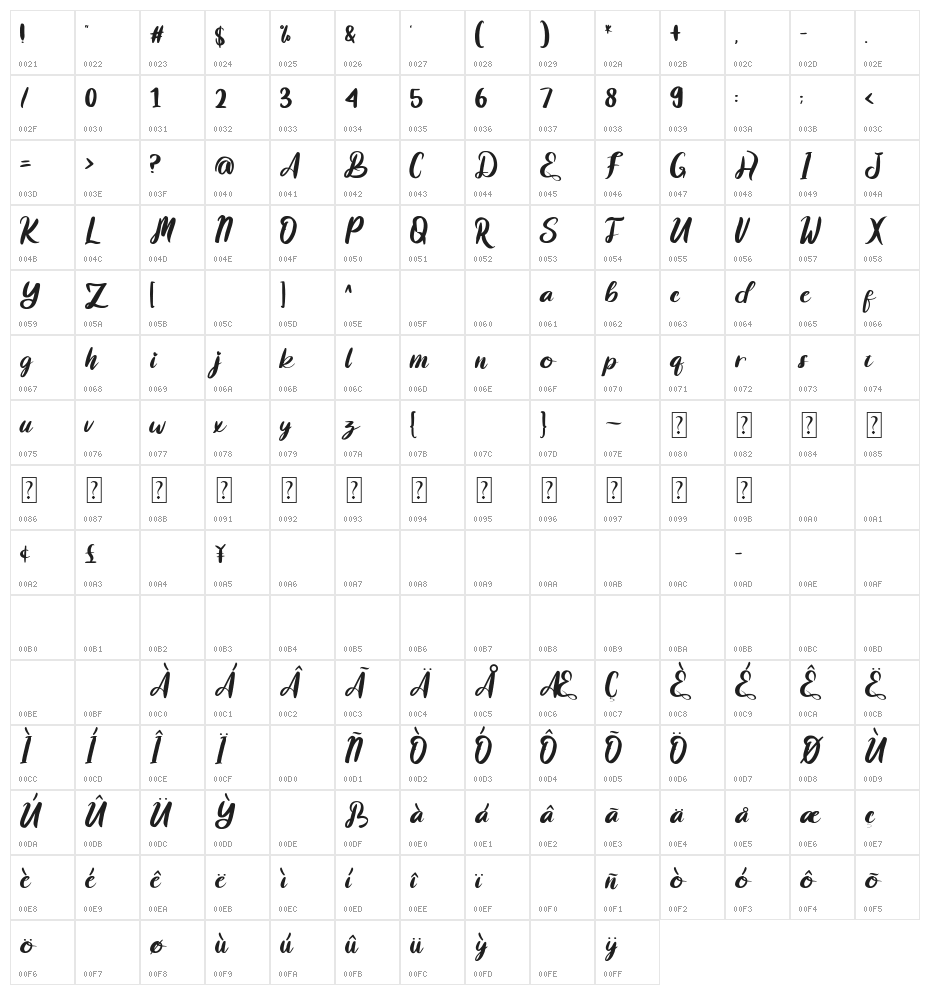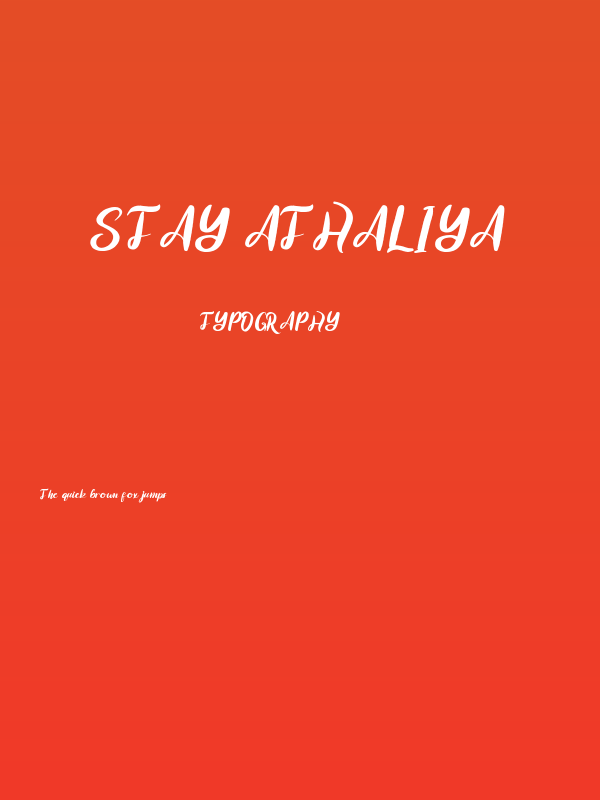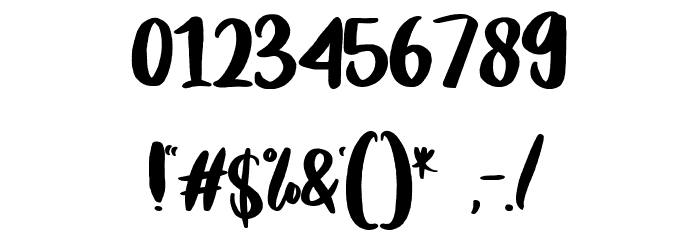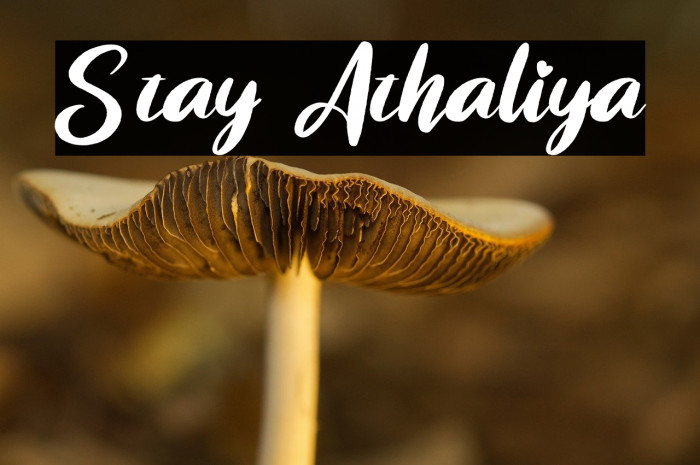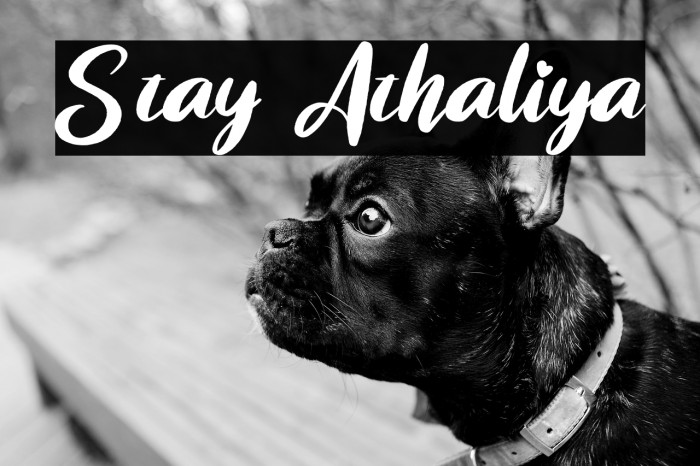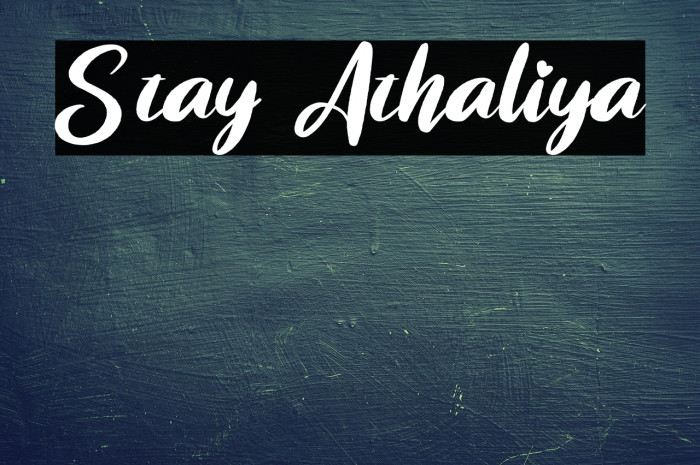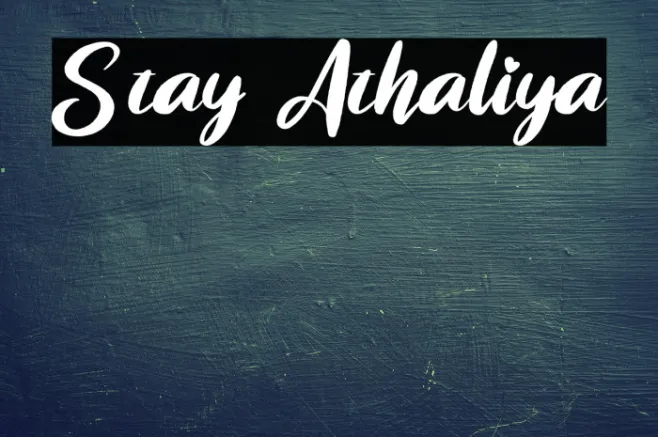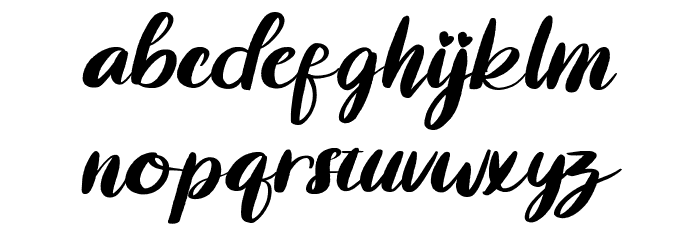
Stay Athaliya Font
Stay Athaliya Description
This font features a bold, flowing script style with a modern flair. The uppercase letters are elegantly curved with some decorative flourishes, particularly noticeable in characters like 'A' and 'G'. The lowercase letters maintain a consistent style, with smooth connections and a slightly playful appearance. Numbers are bold and clear, matching the overall aesthetic. Special characters are well-integrated, maintaining the script's fluidity. The font's design is both artistic and legible, making it suitable for creative projects.